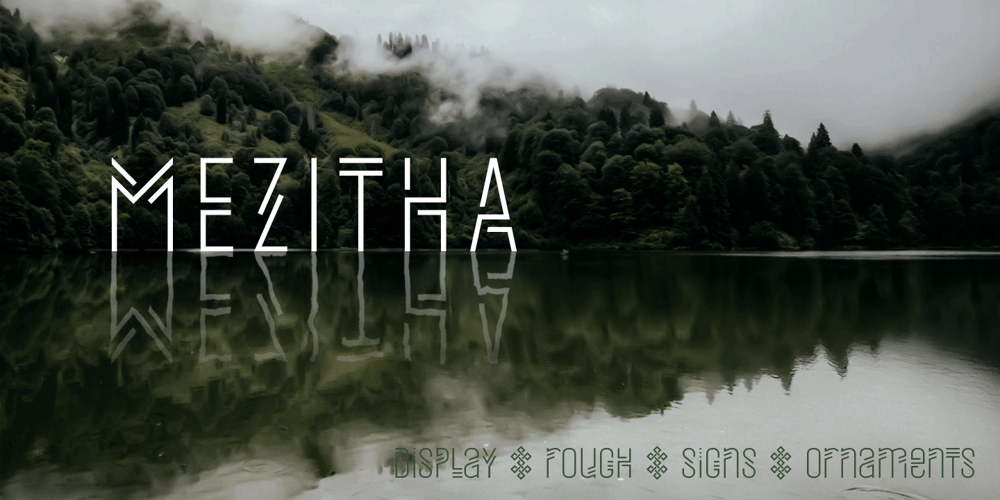
Mezitha
Mezitha font
Mezitha Font Family was designed by Koray Özbey and published by Koray Özbey. Mezitha contains 4 styles and family package options. Mezitha is display font that has an ethnic view with modern style. It’s suitable for branding, packaging, printing, poster designs, natural products etc. Mezitha Ornaments contains 3 groups of symbols. 1- Combining Ornaments 2- Repeating glyphs to create borders with finishes. 3- Single symbols. Most of the glyph has alternates and all of them has two version (thick and thin).